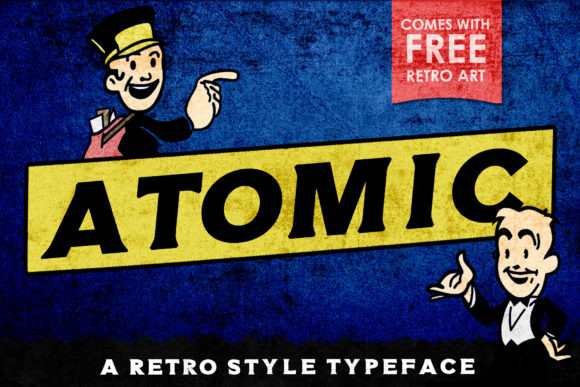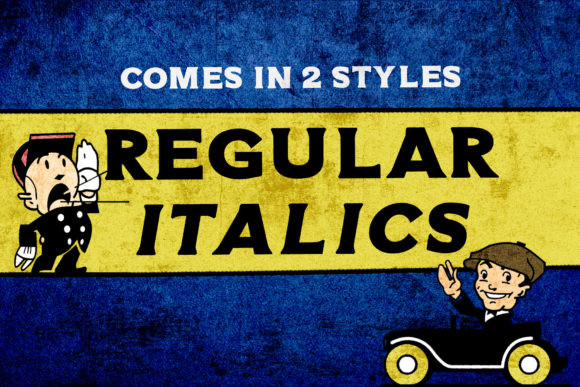
Atomic Font
Atomic is a unique and extraordinary serif font, passionately handcrafted to add a retro vibe to any design idea. It contains uppercase, lowercase, numbers, and special characters.